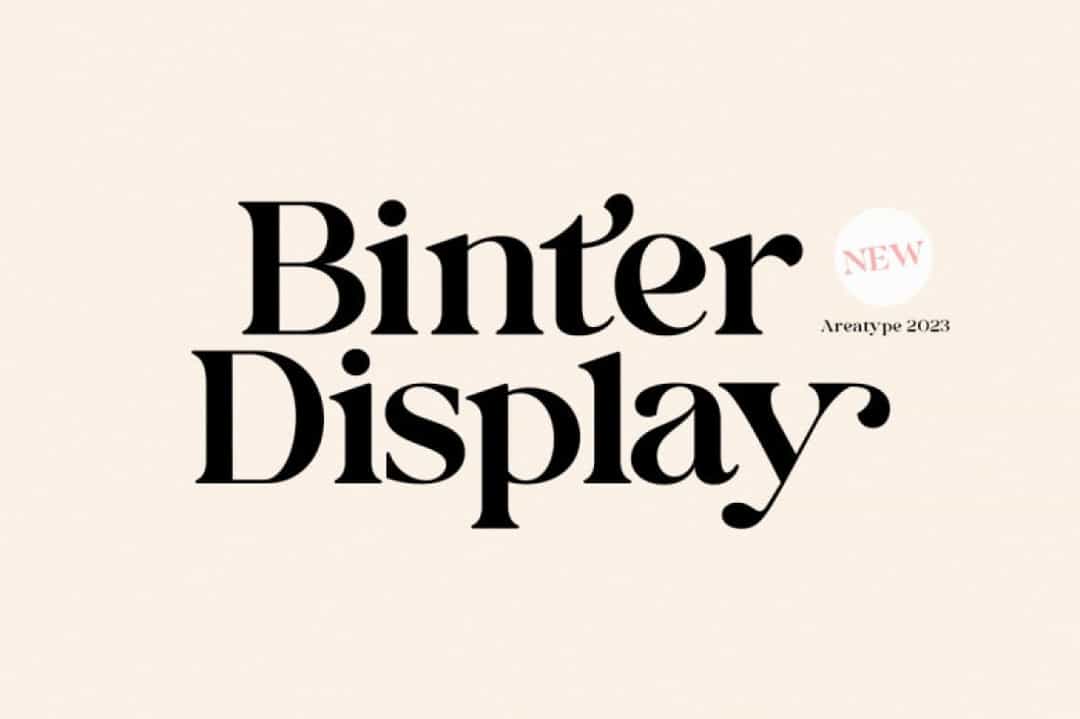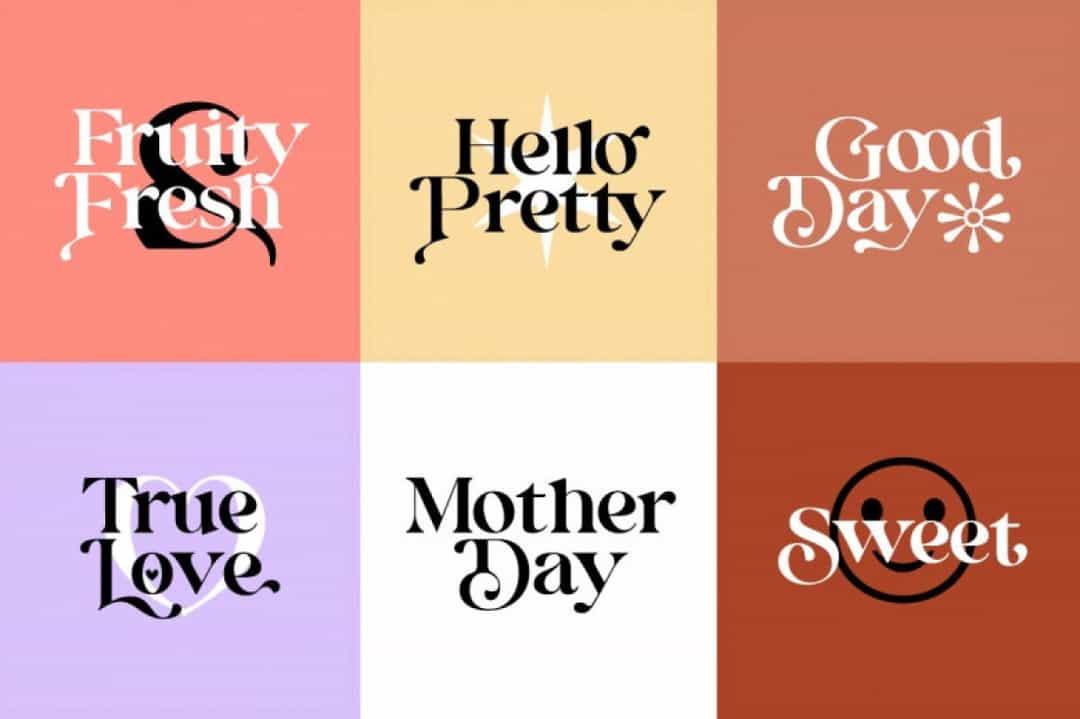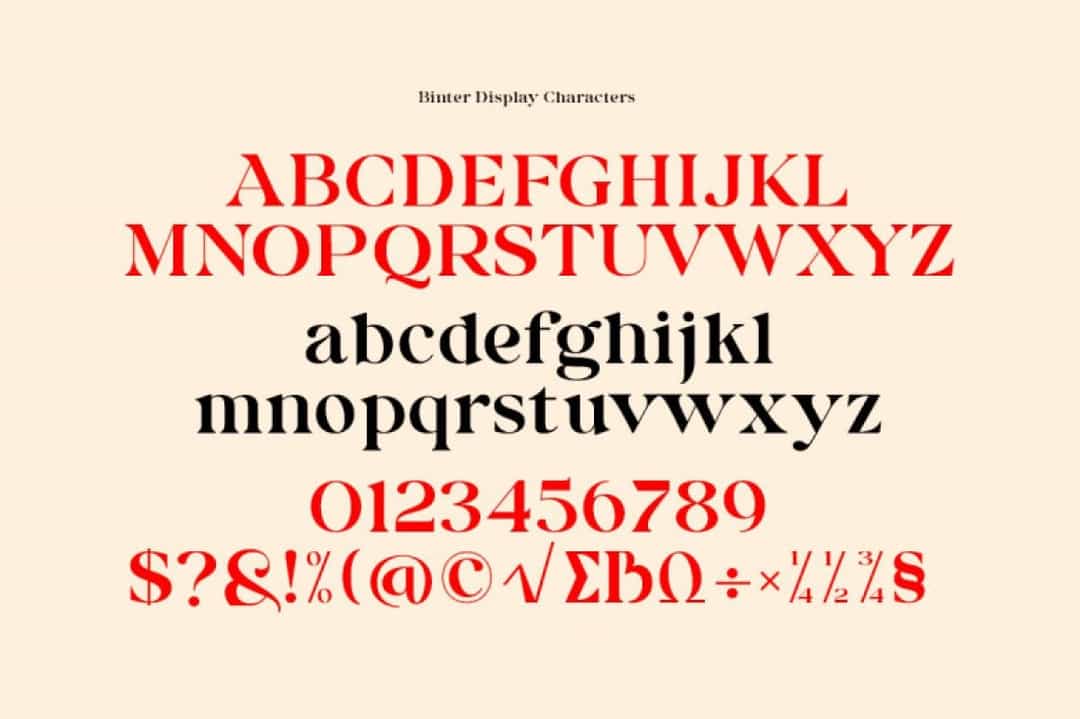
Binter Display is an exquisite serif typeface with an air of sophistication and grace. Inspired by classic typography, its classic letters make Binter Display ideal for branding purposes, editorial designs and printing materials.